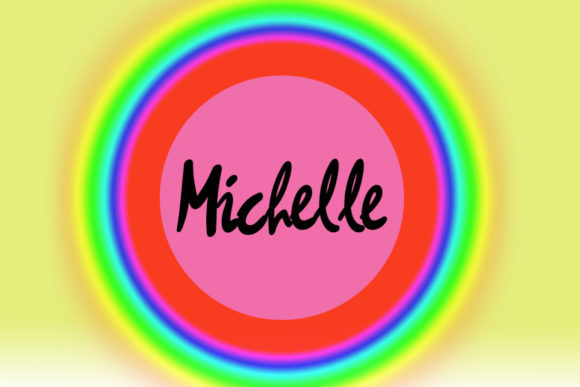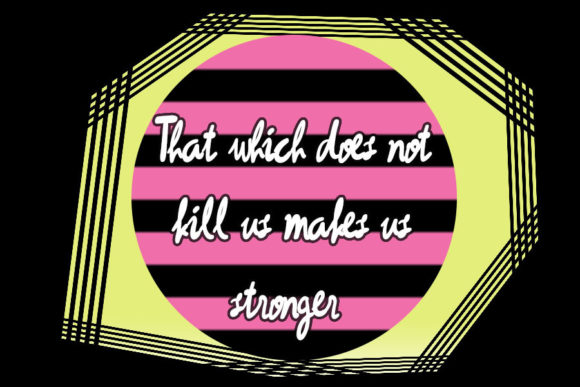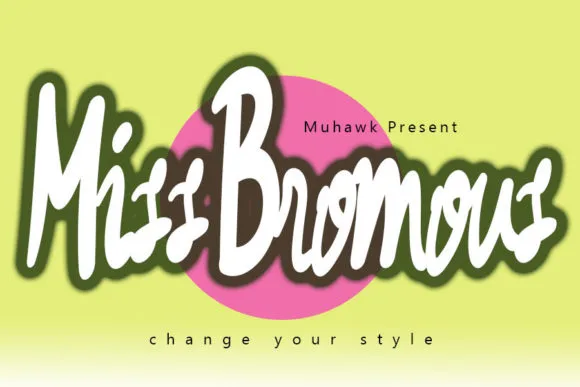
Miss Bromous Font
About Miss Bromous Font
Miss Bromous is a whimsical script font with a relaxed theme, featuring a lovely style. No matter the topic, this font will be an incredible asset to your fonts’ library, as it has the potential to elevate any creation.